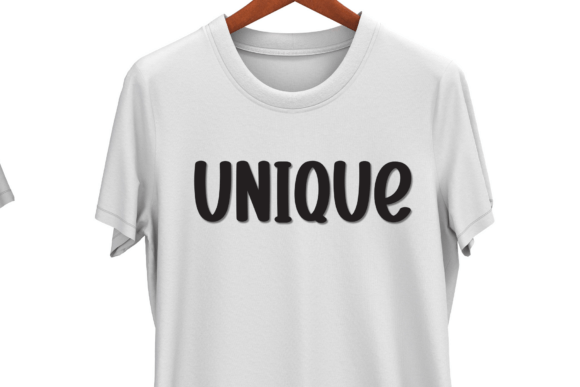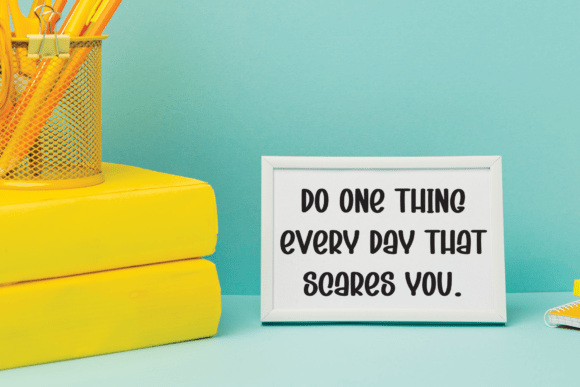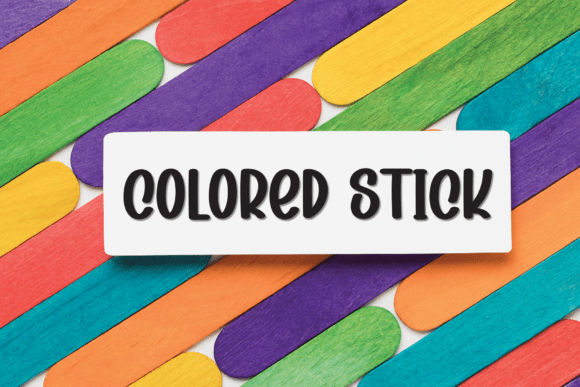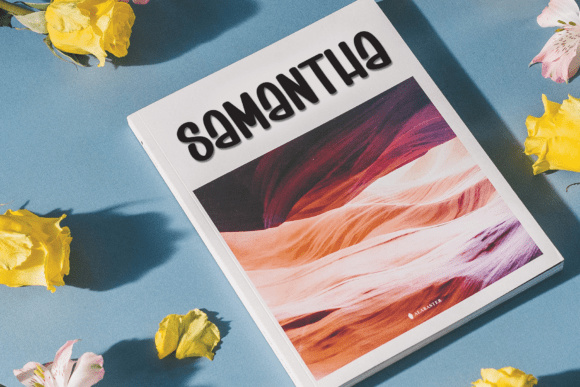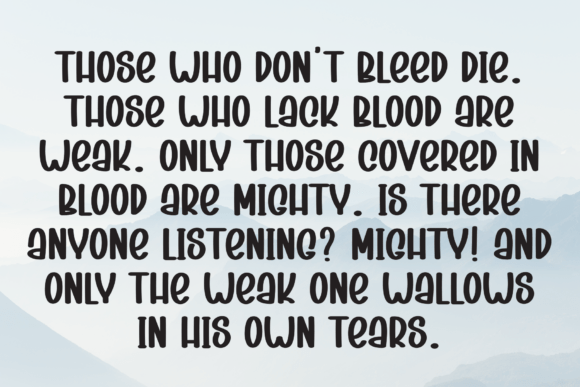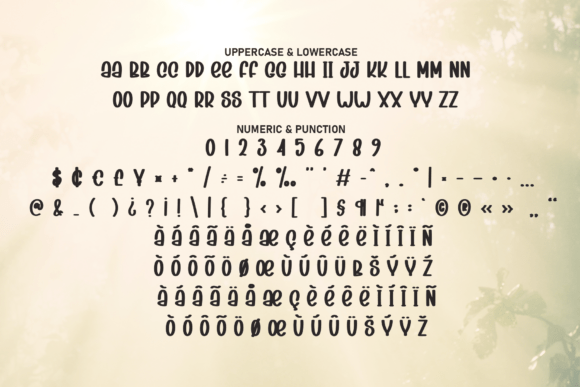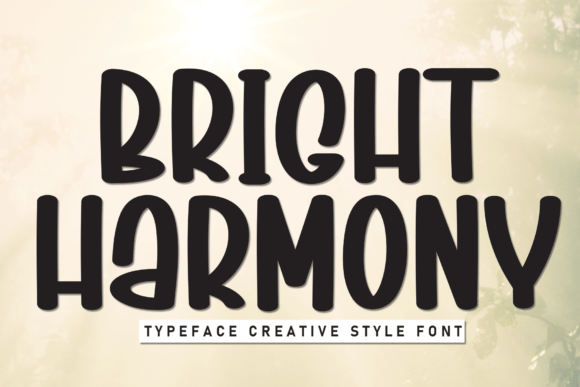
The Designer’s Delight: Bright Harmony Font
I still remember the project that led me to discover the Bright Harmony font. I was working on a branding campaign for a children’s educational app, and I needed a font that was both playful and modern. After hours of scrolling through font libraries, I stumbled upon Bright Harmony, and it was love at first sight! ✨ The cheerful and friendly vibe of this handmade font with rounded edges instantly resonated with my design vision.
- ✨ The casual charm of Bright Harmony makes it perfect for lifestyle branding, kids’ designs, and cozy packaging.
- ✅ The font’s modern twist and rounded edges give it a unique and approachable feel.
- 💻 It works great for both digital and print projects, making it a versatile addition to any designer’s toolkit.
- 🎨 The font’s playful personality shines through in positive quotes, social media posts, and other creative projects.
While Bright Harmony is an excellent font, it’s not without its quirks. 🤔 Here are a few things to keep in mind:
- ⚠️ Some users have reported issues with kerning, particularly with certain letter combinations.
- ⚠️ The font may not be suitable for very small text sizes or body text, as it can become difficult to read.
The Designer Inspiration Behind Bright Harmony
Bright Harmony was designed with the intention of creating a font that embodies warmth and friendliness. The designer aimed to craft a typeface that would bring a sense of joy and approachability to various design projects. Inspired by the beauty of handmade crafts and the playfulness of children’s art, Bright Harmony is a font that celebrates creativity and positivity.
Q: What type of projects is Bright Harmony best suited for?
A: Bright Harmony is perfect for lifestyle branding, kids’ designs, cozy packaging, and positive quotes. Its playful personality and modern twist make it a versatile font for various creative projects.
Q: Is Bright Harmony a difficult font to read?
A: Bright Harmony is generally easy to read, especially at larger text sizes. However, it may not be suitable for very small text sizes or body text, as it can become difficult to read.